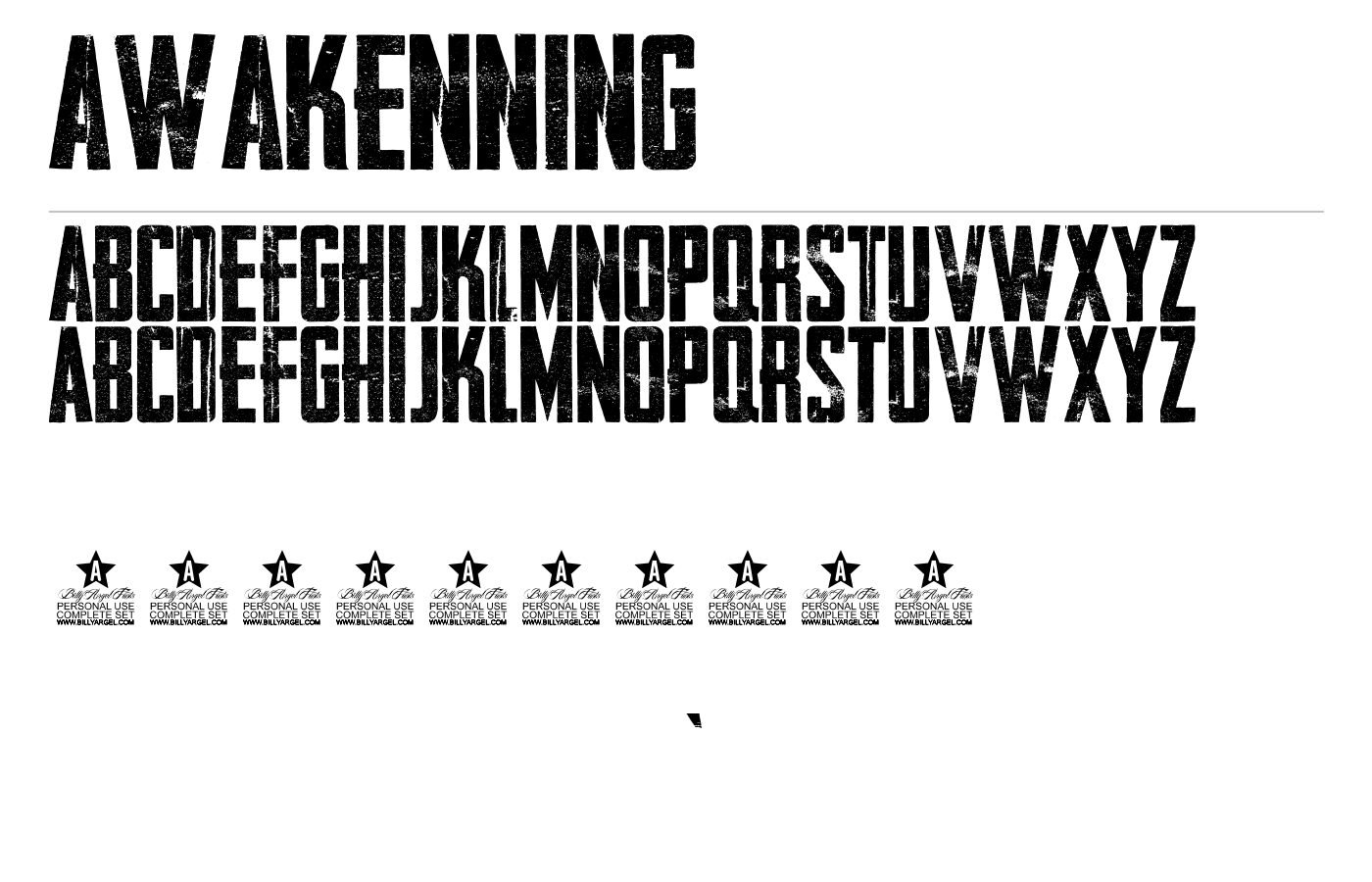
Awakenning is a bold, condensed sans serif font with a rugged, distressed texture that gives it a strong, vintage industrial feel. Its tall, narrow letterforms with uneven, worn edges evoke a sense of toughness and character, making it ideal for impactful headlines, posters, and branding that seeks to convey strength and authenticity. This font works particularly well in designs that require a bold statement with a gritty, handcrafted vibe.
AWAKENNING Font